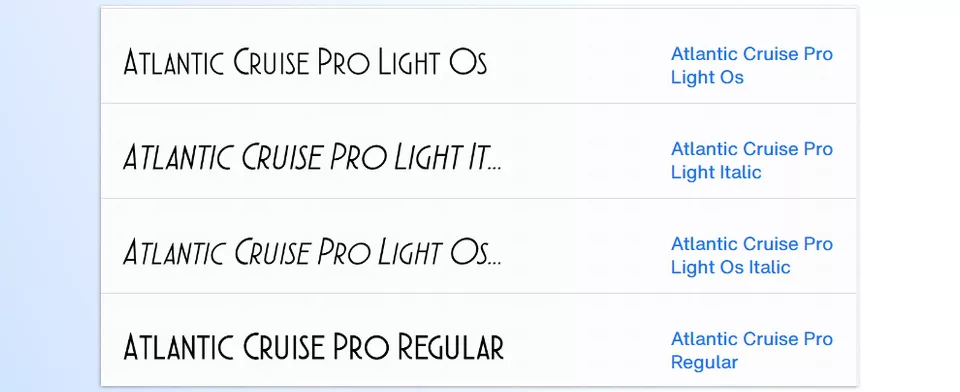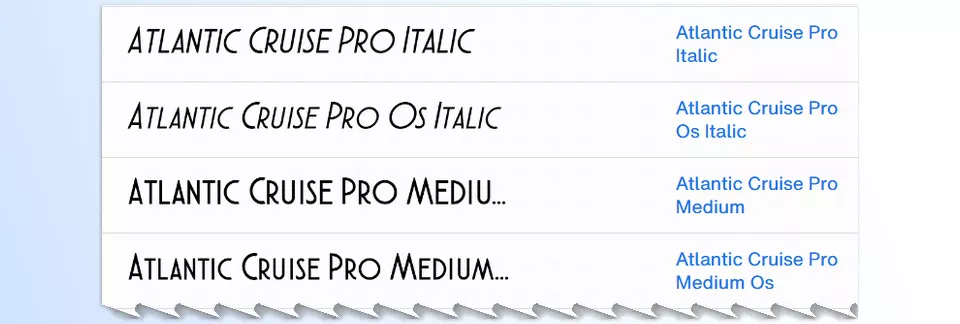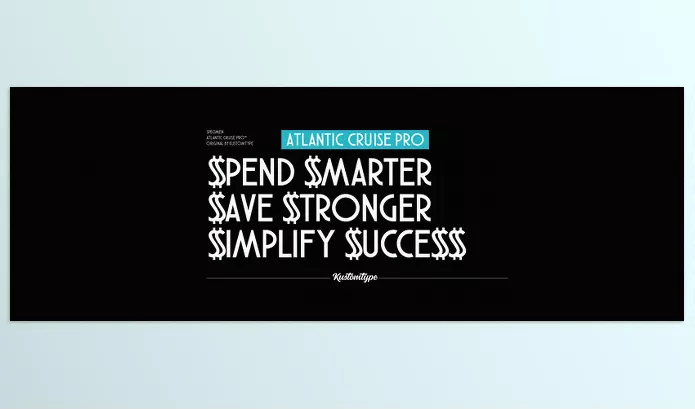
Atlantic Cruise Pro Font Family is a mid-century vintage with a touch of modernity. The font’s bold lines and sophisticated form draw inspiration from 1950s travel posters. This makes the font suited for branding, packaging, editorial work, and much more. With its 20 available font weights and italics, any creative endeavor is able to be realized.
• Achieves different flexibilities across designs because of its 20 weights.
• Variants add expression through the Italic form.
• Enhanced multilinguistic use with further Latin character support.
• Has a blend of retro and modern, inspired design.
• Perfect for branding, packaging, editorial design, and much more.
• Sophisticated yet readable, clear characters.
• Vintage and contemporary aesthetics are beautifully achieved.
• It is freely readable due to the quality of kerning, spacing, and overall bone structure of the font.
Image 1: Elegance and style converge in this typeface, adding a touch of midcentury flair to any design.
Atlantic Cruise Pro Font Family - Elegance and style converge in this typeface, adding a touch of midcentury flair to any design.
Image 2: Where timeless sophistication meets modern versatility, creating the perfect font for creative projects.
Atlantic Cruise Pro Font Family - Where timeless sophistication meets modern versatility, creating the perfect font for creative projects.